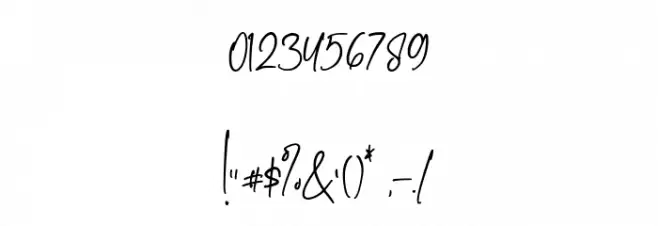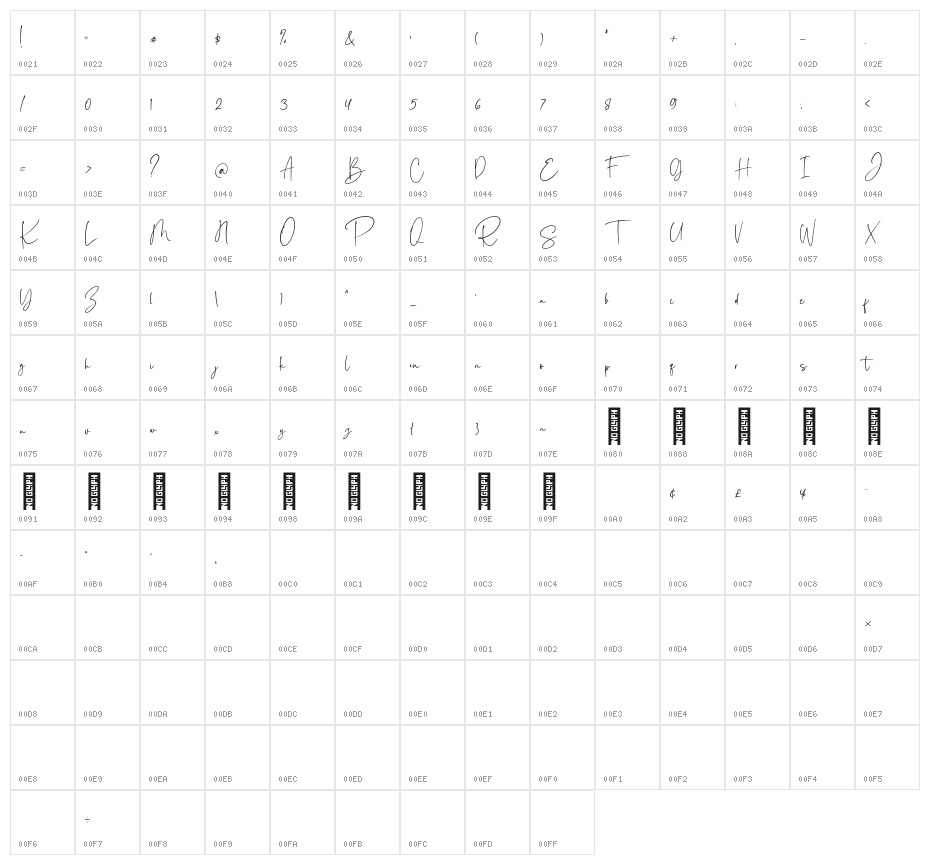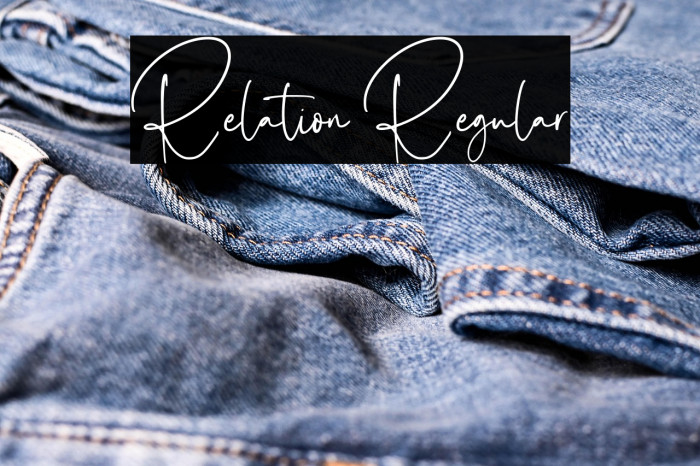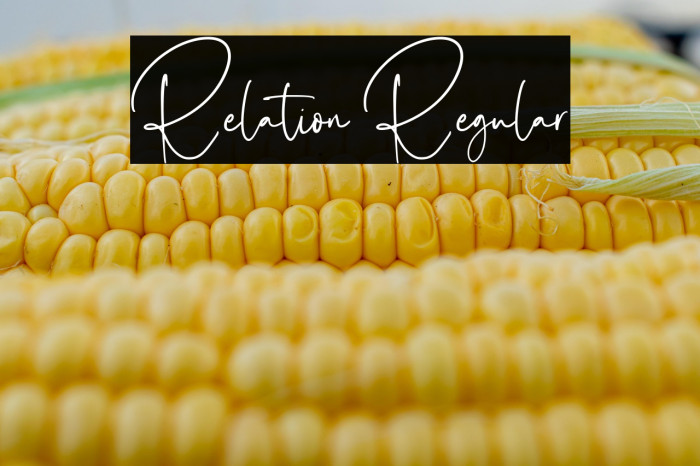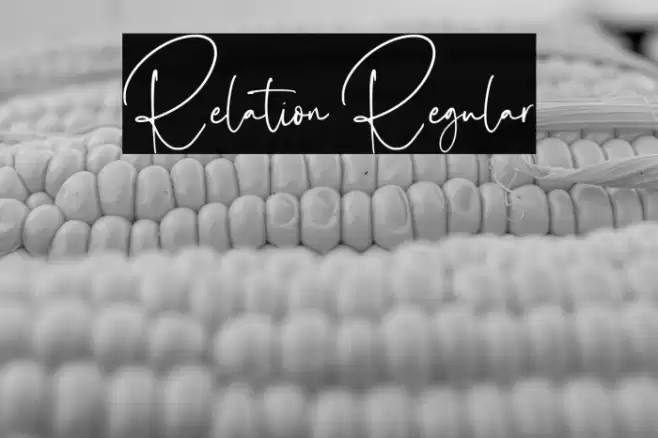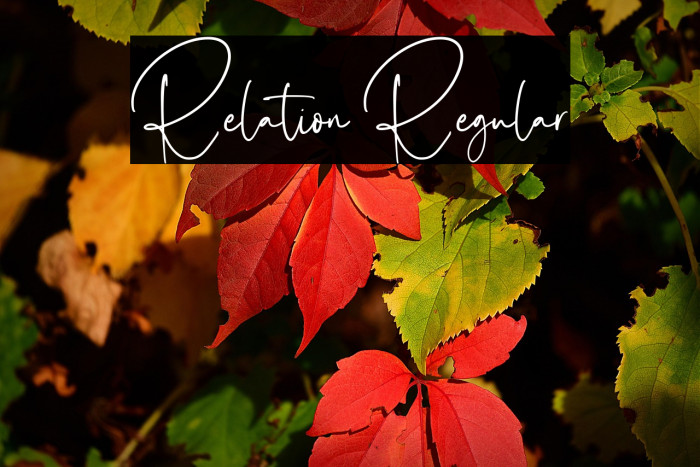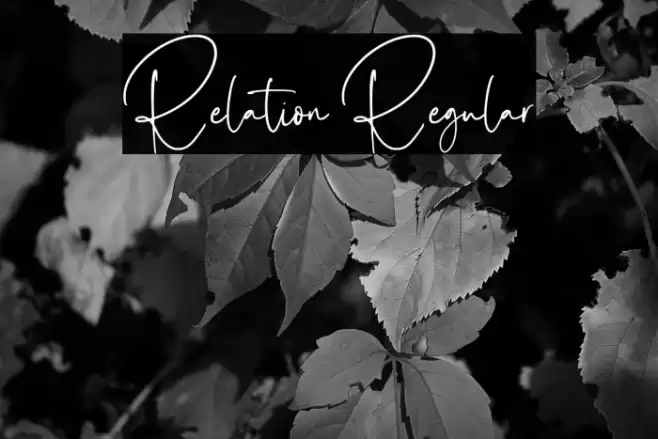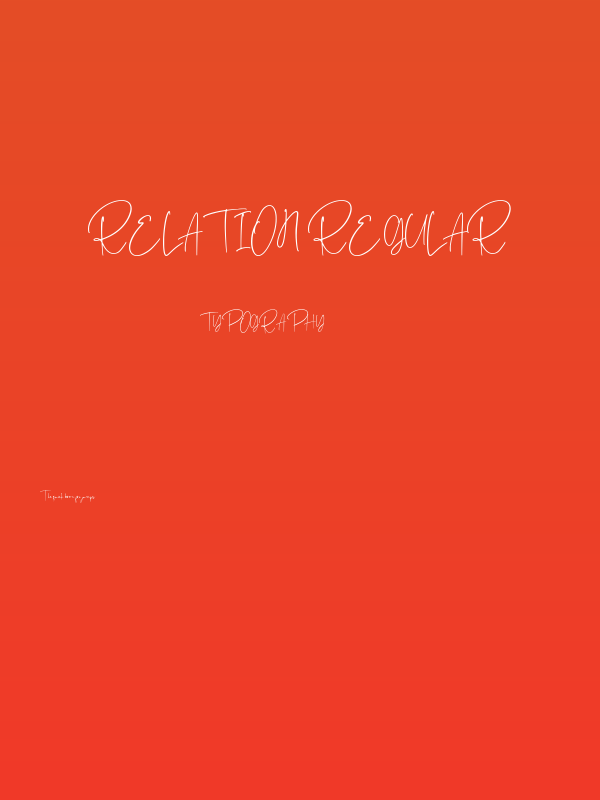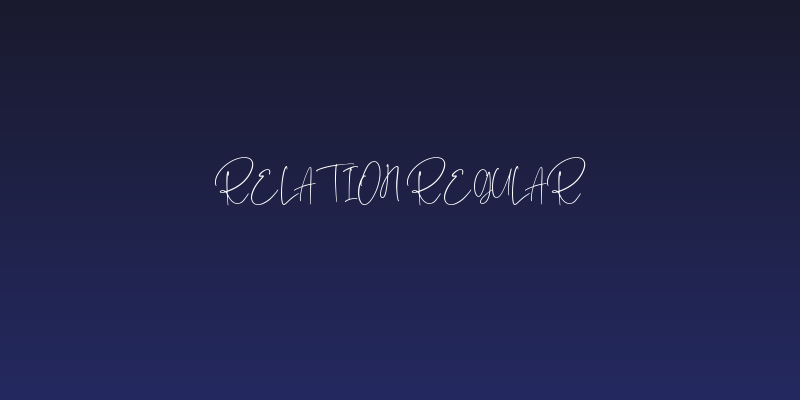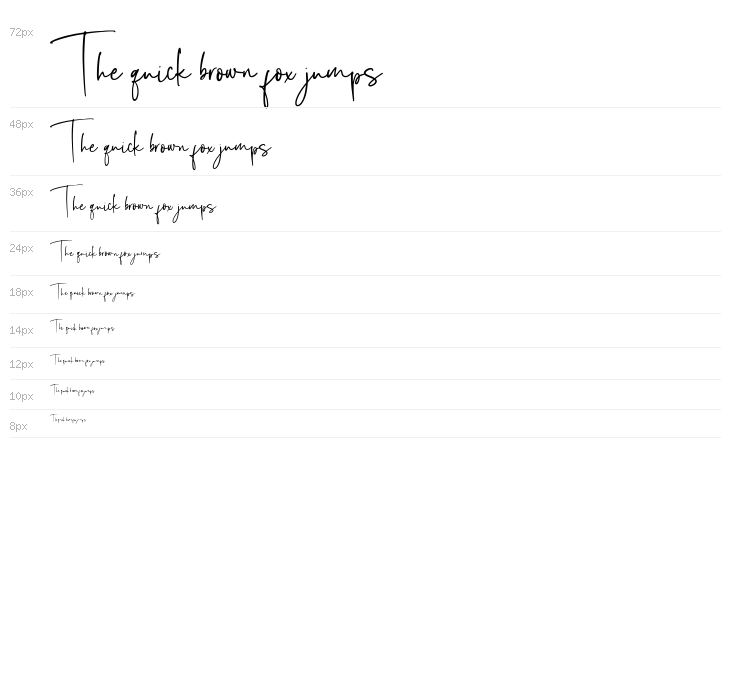
Relation Regular Font
Relation Regular Description
This font features a playful and expressive handwritten style, characterized by its fluid and dynamic strokes. The uppercase letters are tall and slightly irregular, giving a sense of spontaneity and creativity. The lowercase letters maintain a consistent flow, with some letters extending below the baseline, adding to the casual and artistic feel. The numerals are well-integrated with the overall style, maintaining the same lively and informal appearance. Special characters are crafted with the same attention to detail, ensuring they blend seamlessly with the rest of the font. This font is perfect for projects that require a personal and artistic touch, such as invitations, greeting cards, or creative branding.
| Proposed Projects | Ideal for invitations, greeting cards, creative branding, and artistic projects. |